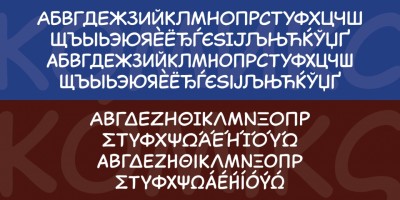
American Advertise 019 Font is perfect for vintage advertising campaigns, retro brand identities, classic diner signage, Americana-themed posters, nostalgic packaging designs, old-school marketing materials, patriotic event graphics, traditional barbershop logos, classic automobile branding, and heritage product labels. Its vintage character makes it ideal for projects requiring authentic American advertising nostalgia and mid-century commercial appeal.
What makes American Advertise 019 Font exciting is its faithful recreation of classic American advertising typography from the golden age of commercial design. The font features bold, confident letterforms that capture the optimistic spirit and persuasive power of mid-20th century American advertising while maintaining modern functionality. Its distinctive character evokes the era of classic diners, vintage automobiles, and iconic American brands that shaped commercial design history.
The American Advertise 019 Font family includes Regular, Bold, Condensed, Extended, Shadow, Outline, and Vintage variations. Each style preserves the font's authentic advertising heritage while offering different weights and effects for versatile retro design applications. The comprehensive character set includes period-appropriate symbols, commercial ornaments, and classic American typography elements essential for authentic vintage advertising projects.
Marketing professionals and retro design enthusiasts consistently choose American Advertise 019 Font Free Download for projects demanding genuine vintage advertising typography solutions. The font's classic American character instantly establishes nostalgic atmospheres while ensuring effective communication across modern marketing channels. Its versatility bridges historical authenticity with contemporary advertising requirements, making it perfect for brands seeking timeless American appeal.
Whether you're developing retro marketing campaigns, creating vintage brand identities, or designing Americana-themed materials, American Advertise 019 Font provides the perfect combination of nostalgic charm and commercial effectiveness. The font's carefully researched letterforms ensure authentic period character while maintaining excellent performance across various media formats and advertising applications.
The cultural authenticity of American Advertise 019 Font makes it exceptional for creating memorable connections with audiences who appreciate classic American design heritage. Its vintage advertising precision and nostalgic appeal work seamlessly across traditional print advertisements and modern digital marketing platforms. The font performs beautifully in both large-scale outdoor advertising and intimate brand communications.
Capture American advertising heritage with American Advertise 019 Font and discover how classic commercial typography can enhance your brand's nostalgic appeal and marketing effectiveness. This remarkable typeface combines authentic advertising history with modern functionality, making it indispensable for projects celebrating the golden age of American commercial design.